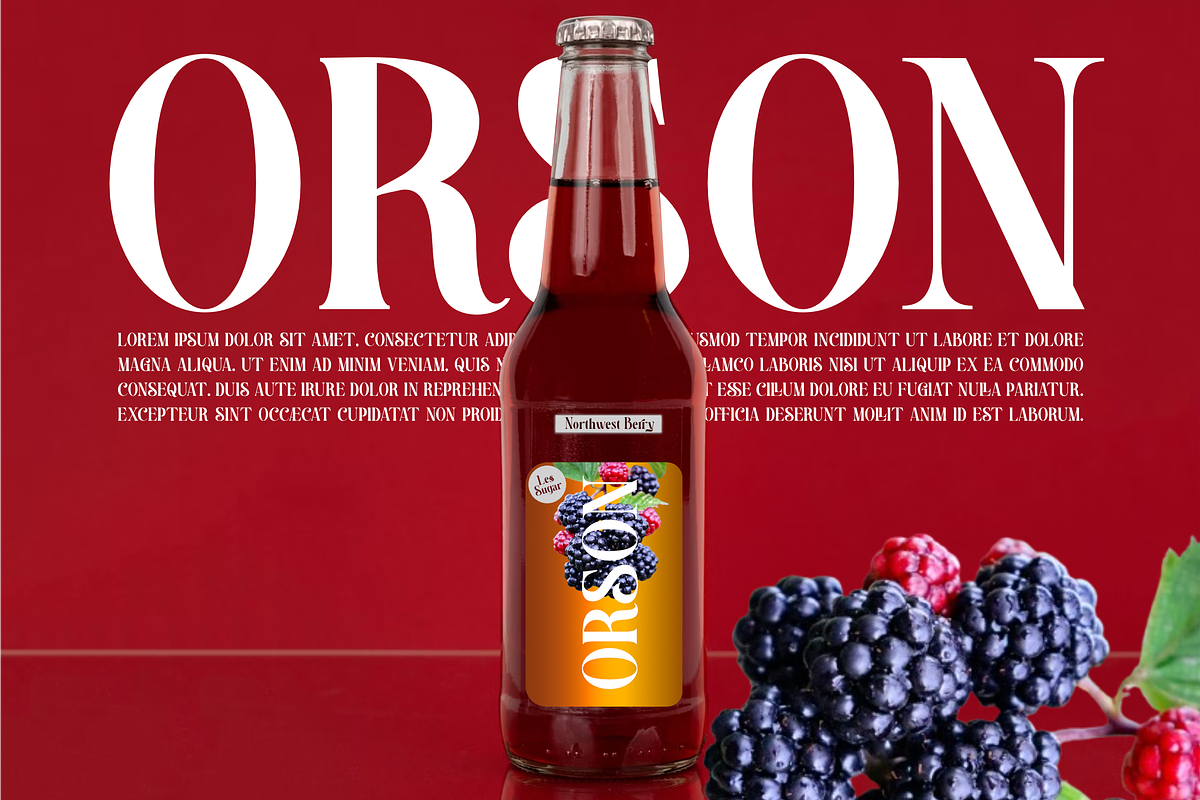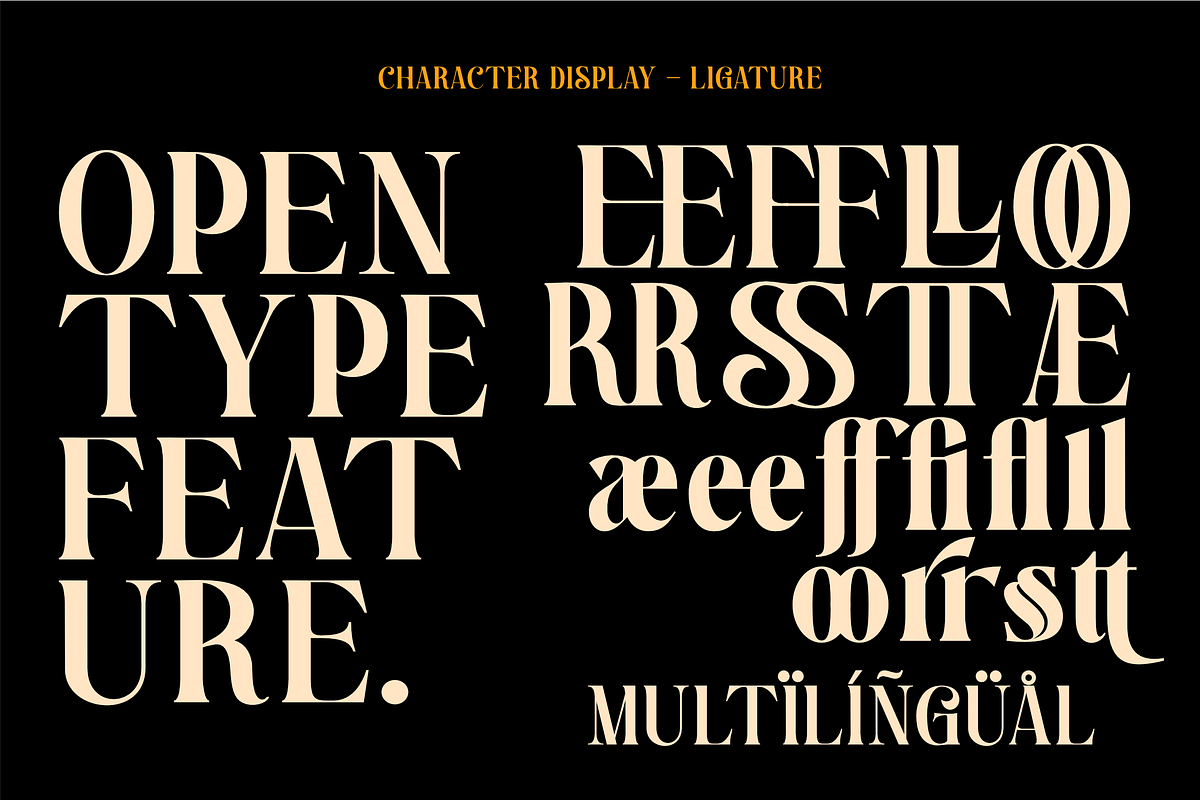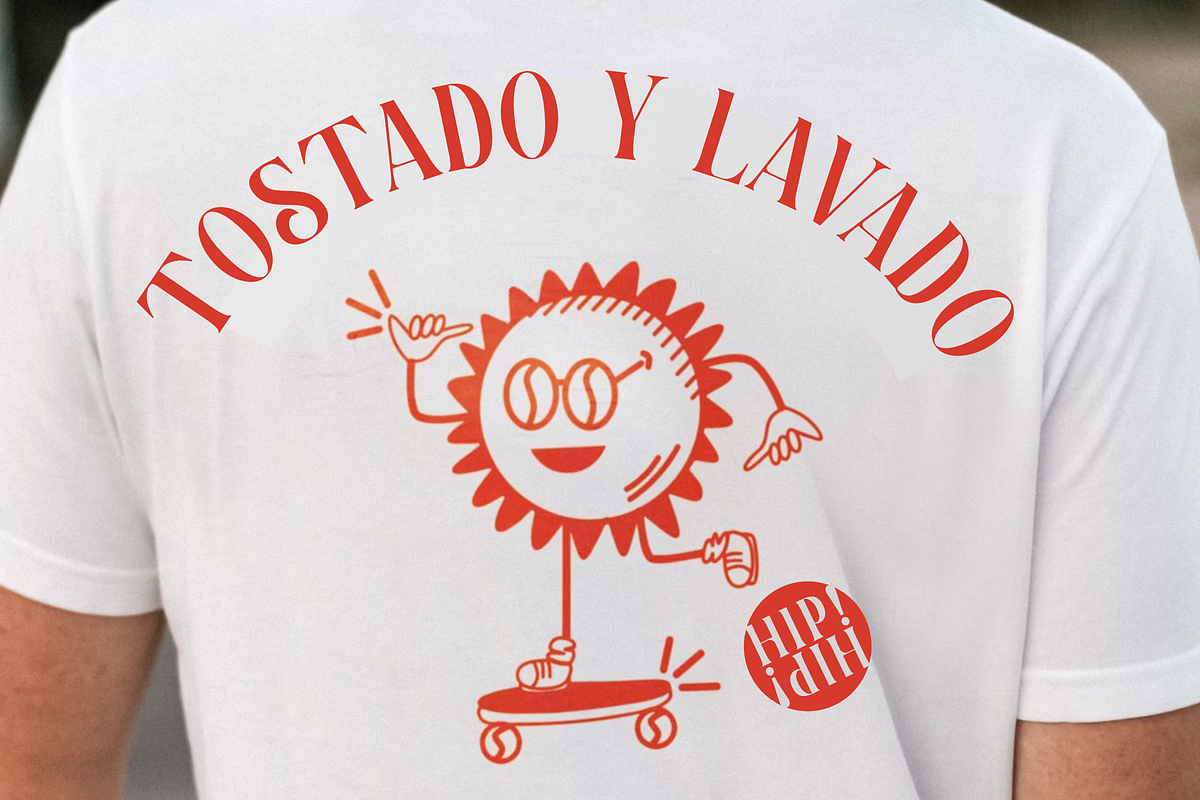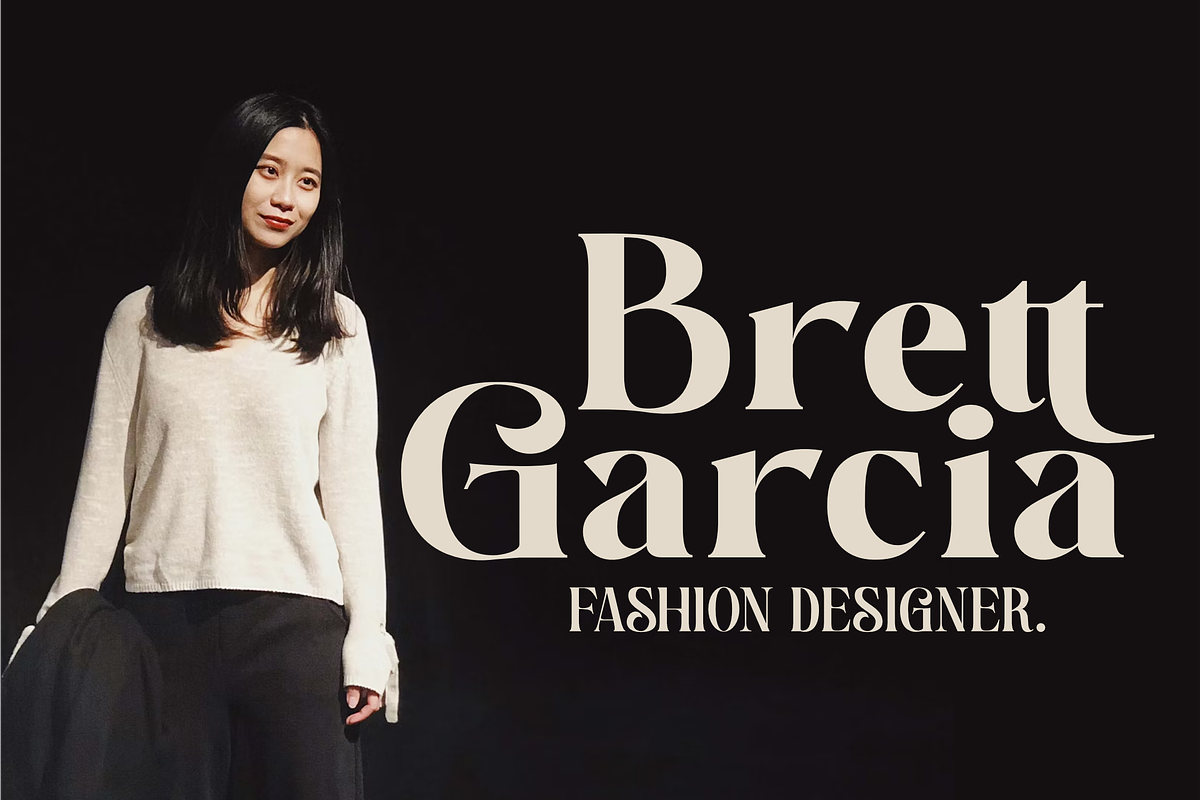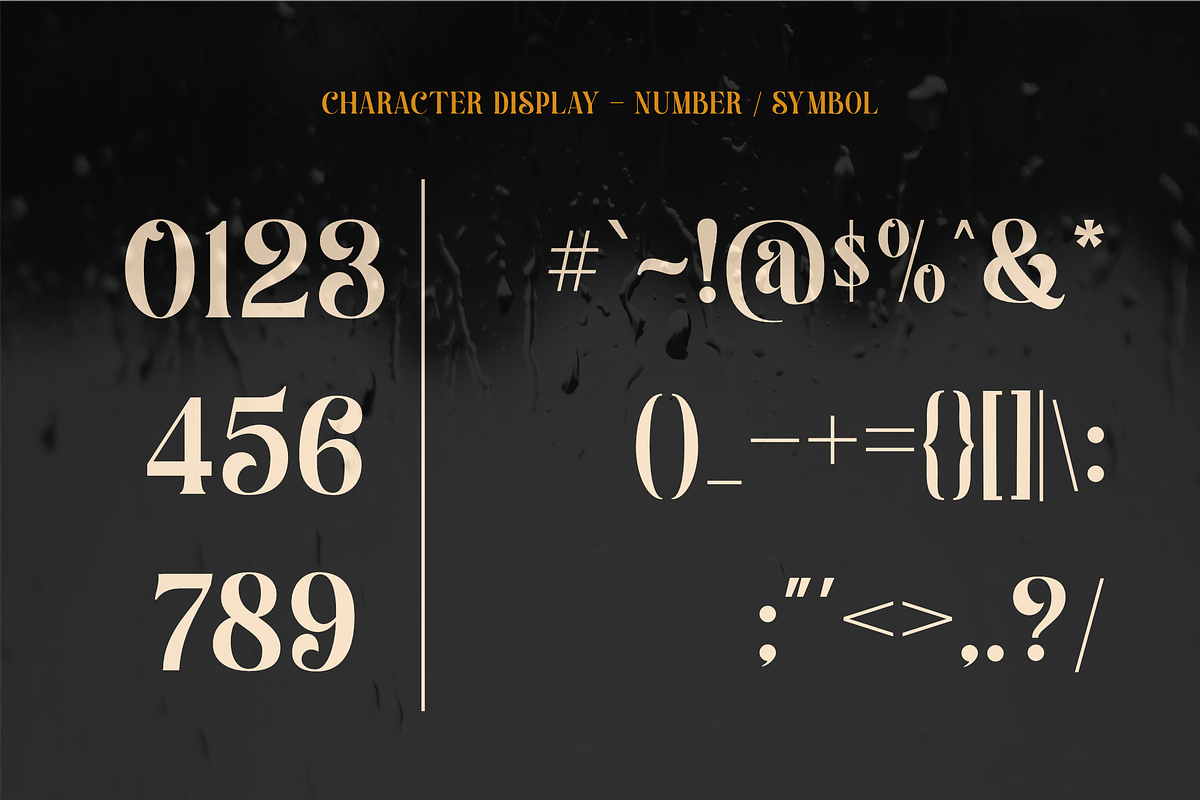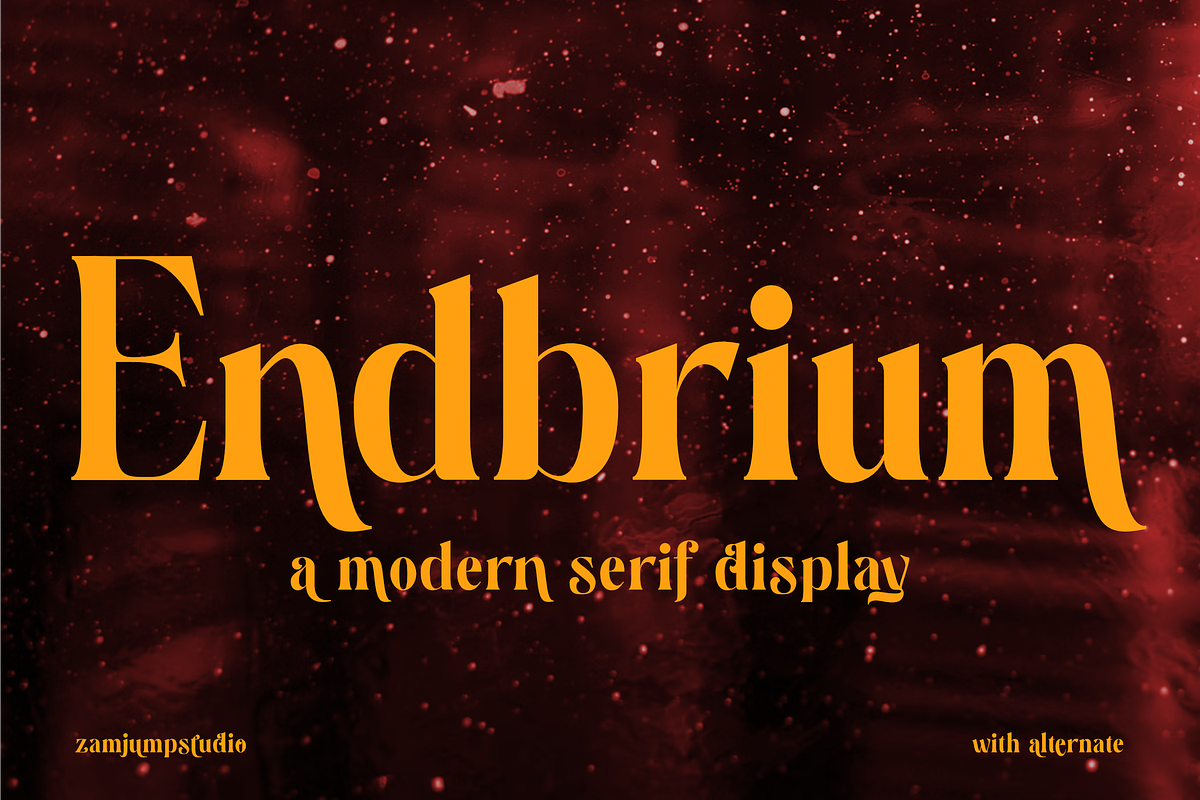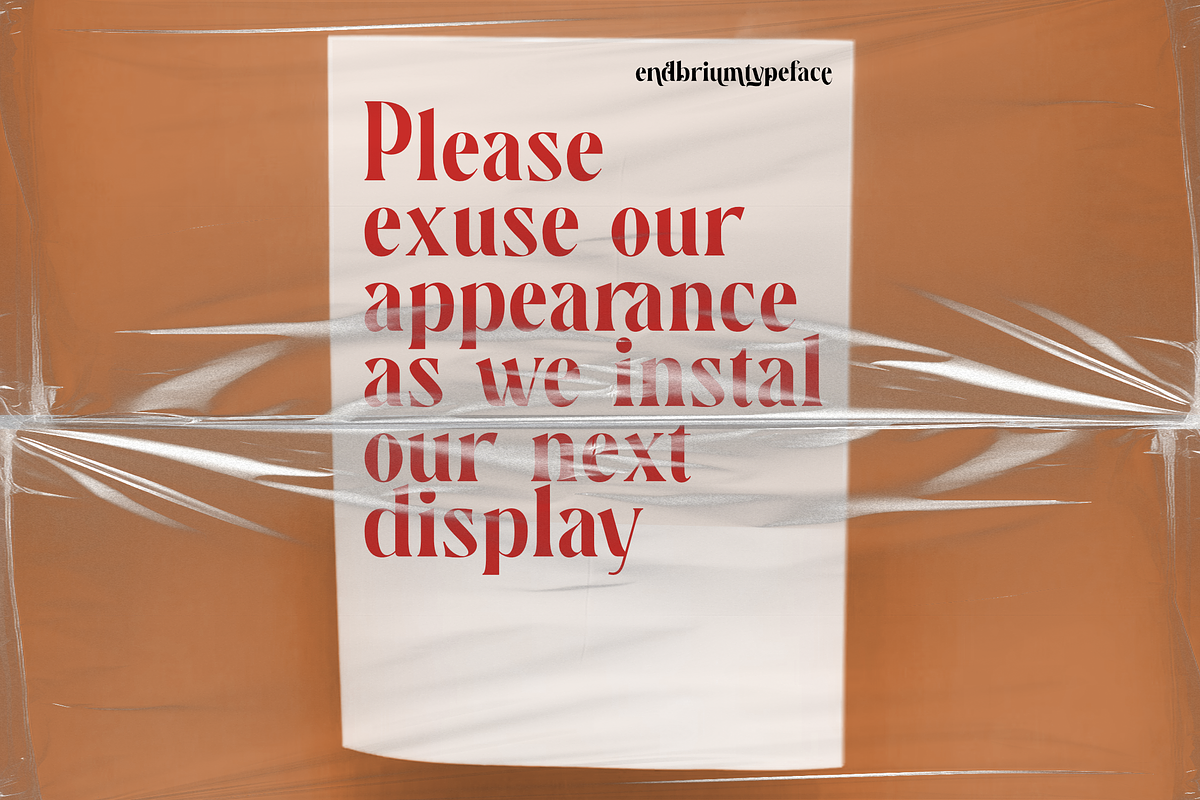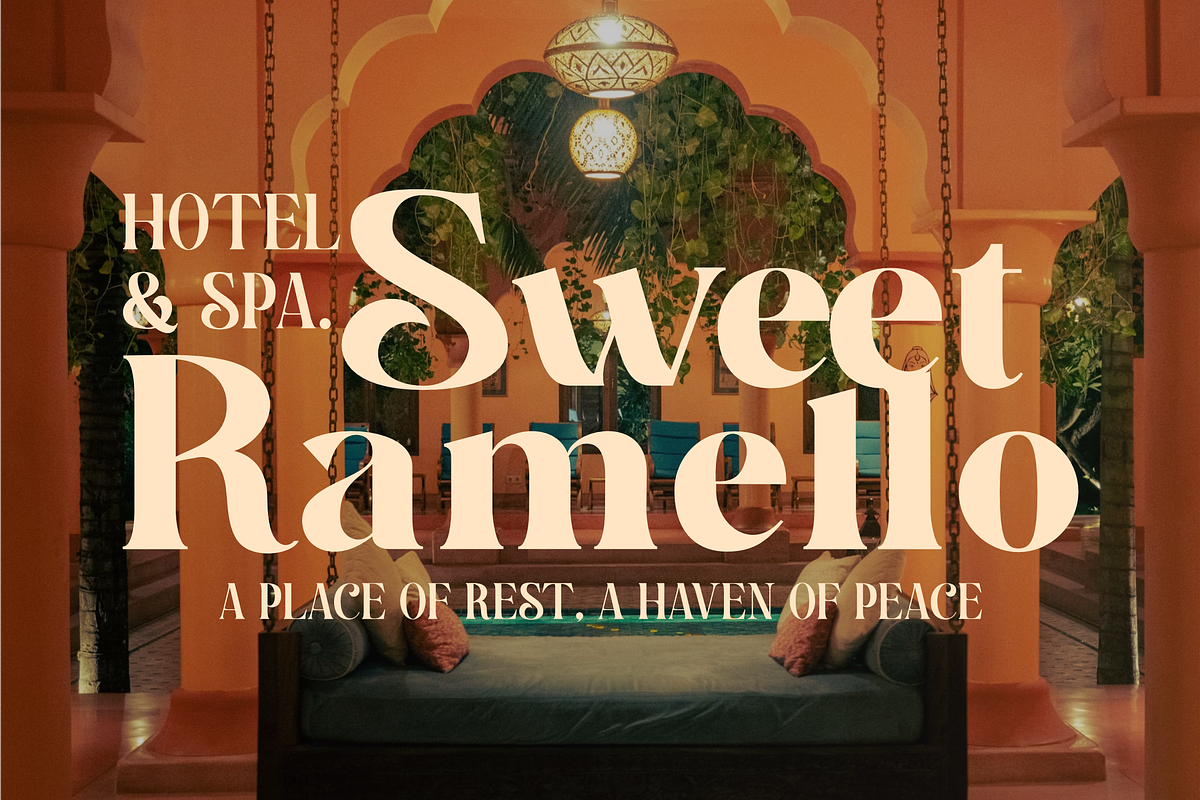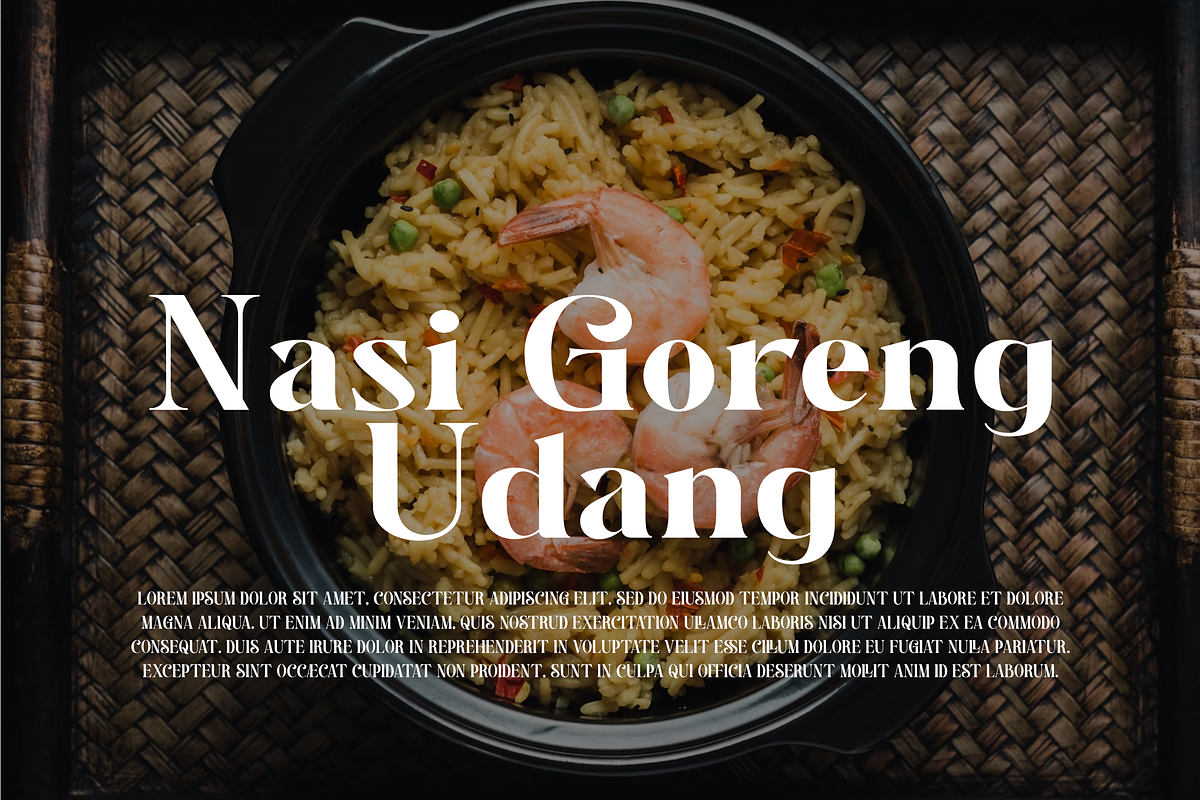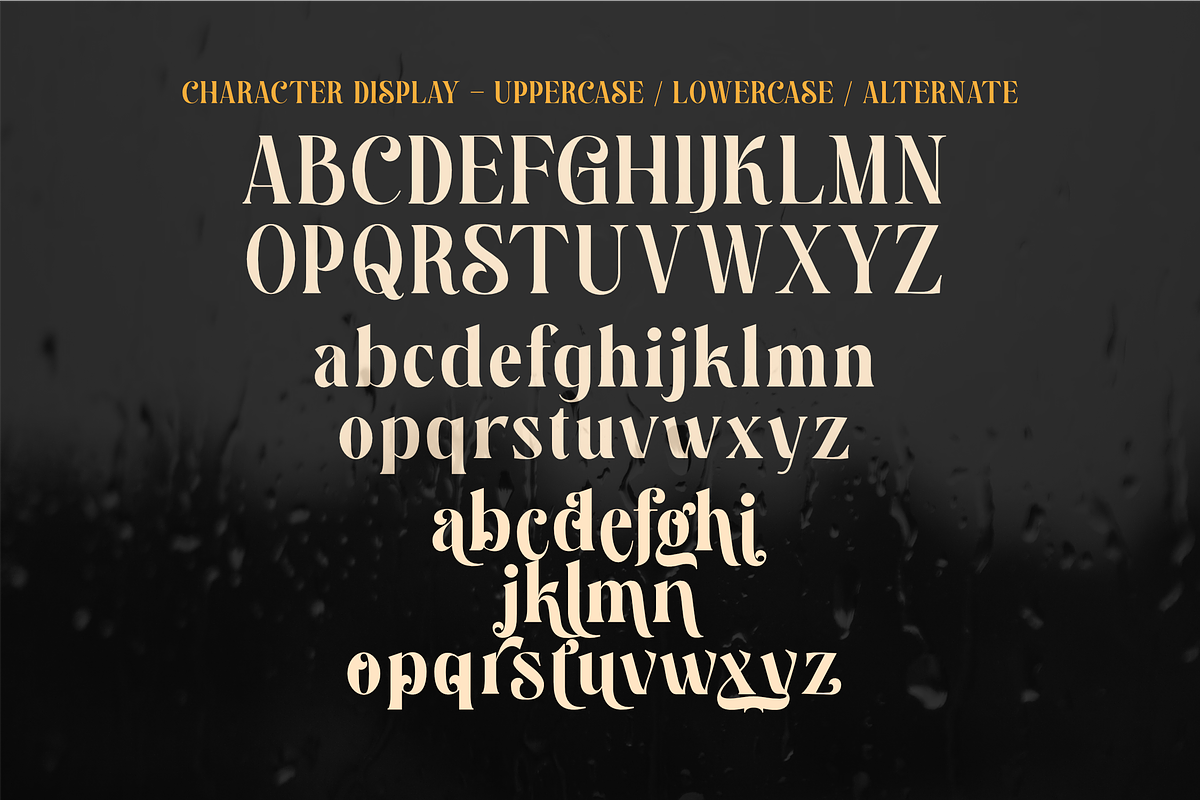
Endbrium - A Modern Serif Display
Endbrium is a Modern Serif Display Font bold yet refined choice, designed to make a statement in any high-impact design. With its meticulously crafted serifs and striking letterforms, it blends classic elegance with modern sophistication. What sets it apart are the thoughtfully included alternates and ligatures, which offer designers an opportunity to customize their typography for a unique and fluid look. The alternates provide diverse stylistic variations, while the ligatures ensure seamless, harmonious connections between letters. Whether you're creating luxury branding, captivating headlines, or high-end editorial layouts, this font delivers both versatility and visual appeal, giving your designs an unmistakable sense of personality and professionalism. Included TTf File Format OTF File Format WOFF/ WOFF 2 File Format Ligature Alternate Punctuation & Symbol Multilanguage